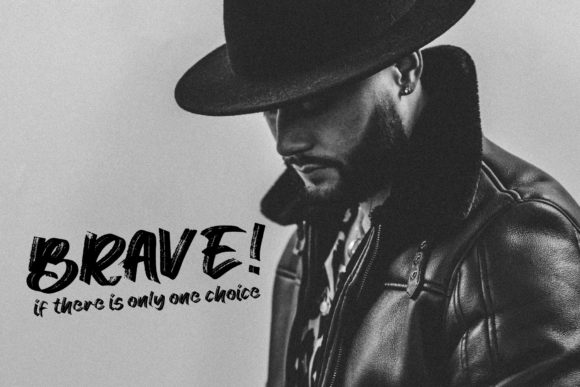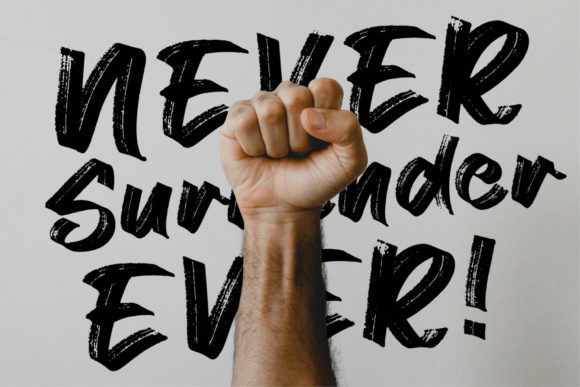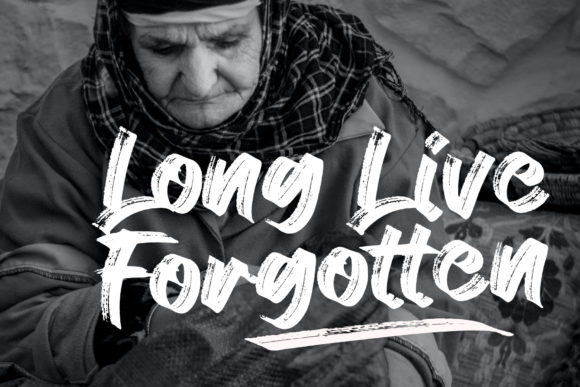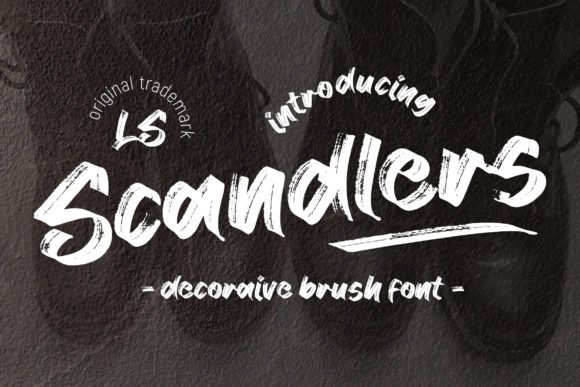
Introduction to Scandlers Font
Scandlers is a bold and cool looking brushed display font.
This font reads as strong, confident, and dynamic and can add tons of nostalgic character to your designs .